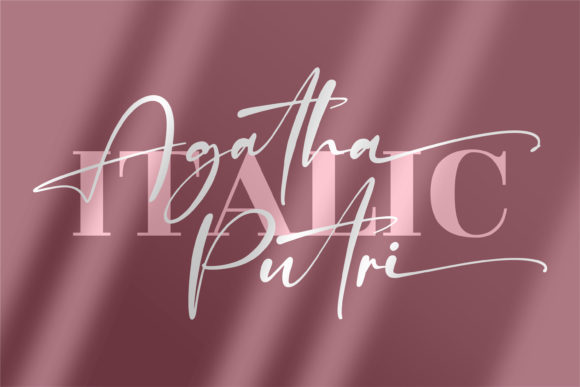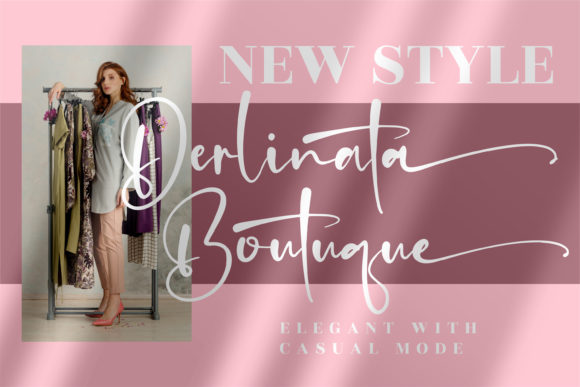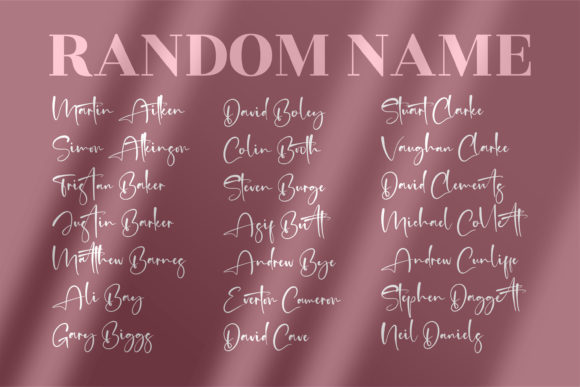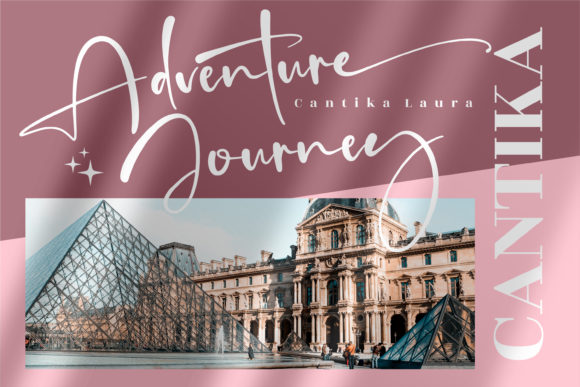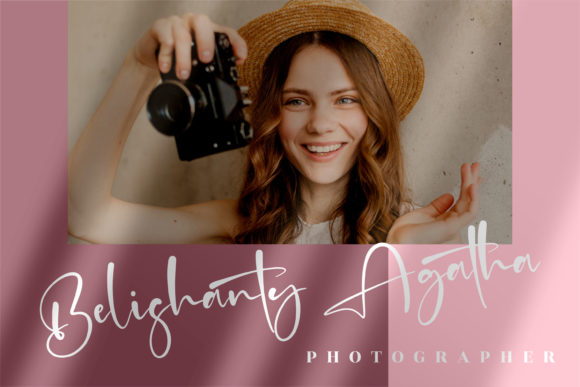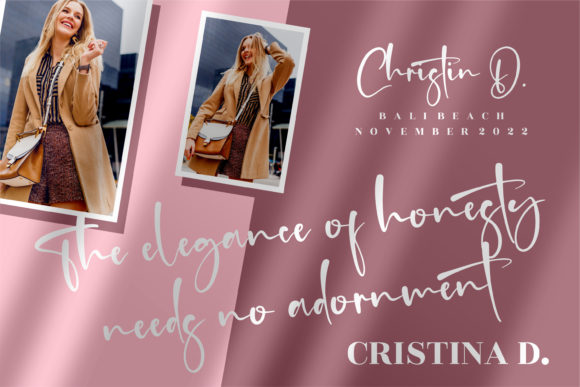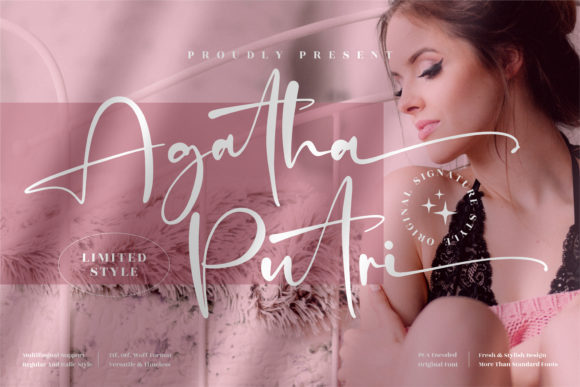
The Agatha Putri Font: A Delicate Script for Elegant Designs
Agatha Putri is a beautifully crafted font, designed to add a touch of sophistication and freshness to your designs. Its elegant strokes and refined features make it perfect for designers, crafters, and creative hobbyists looking to elevate their work.
The Good ✨
- 💫 Elegant and delicate script font perfect for designs that require a touch of sophistication
- 🎨 Highly versatile and can be used for various design projects, from wedding invitations to branding materials
- 👍 Refreshing and unique, making it perfect for designers looking to stand out
The Not-So-Perfect 🤔
- ⚠️ Limited use in very formal or traditional designs, as it may come across as too elegant or cursive
- 🤔 May require some adjustments to work well with other fonts or design elements
The Story Behind Agatha Putri
Agatha Putri was designed with the intention of creating a font that exudes elegance and class. The designer aimed to craft a font that would be perfect for designs that require a touch of sophistication and freshness. With its delicate strokes and refined features, Agatha Putri has become a popular choice among designers and crafters.
| Font Name | Agatha Putri Font |
| Author | Perspectype |
| What is Agatha Putri font? | Agatha Putri is a lovely and delicate script font that exudes elegance and class. |
| Is Agatha Putri PUA encoded? | Yes, Agatha Putri is PUA encoded, making it easy to access glyphs and swashes. |
| Is Agatha Putri suitable for body text? | Agatha Putri is best used for headings and titles, as it may be too elegant for body text. |